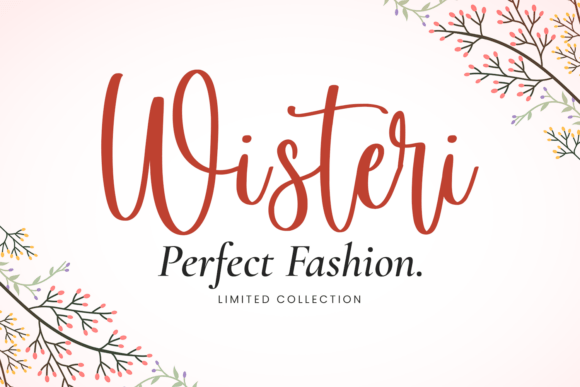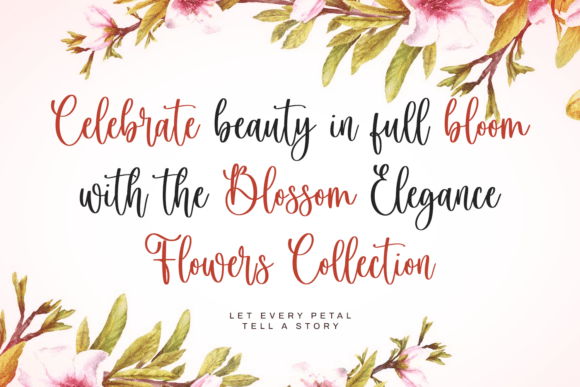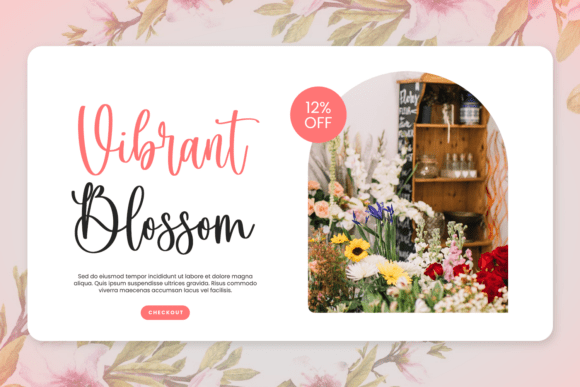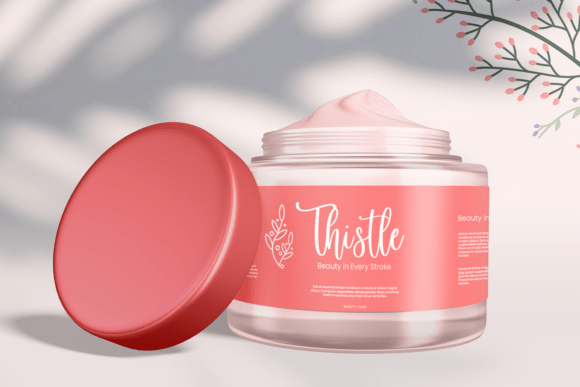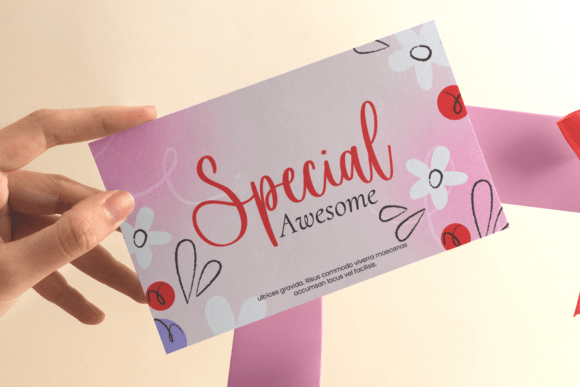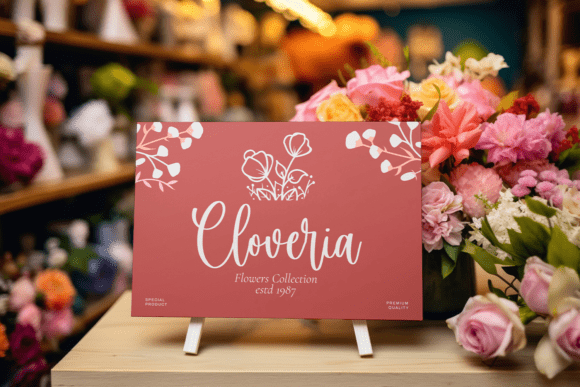
Introducing Antonella: The Elegant Script Handwritten Font for Your Special Designs
Are you looking for a font that can add a touch of elegance and charm to your designs? Look no further than Antonella, a stunning script handwritten font that is perfect for a variety of creative projects. With its graceful curves and flowing strokes, Antonella captures the heartfelt emotion and charm that is ideal for wedding invitations, birthday cards, Easter crafts, Thanksgiving menus, and Christmas decorations.
The Perfect Companion for Your Designs
Antonella is the ideal companion for projects that require a soft and beautifully hand-crafted touch. Whether you’re designing something intimate, like a wedding invitation or birthday card, or something more festive, like a holiday craft or decoration, Antonella adapts effortlessly to the mood of the season. From spring and summer to autumn and winter, this versatile font is sure to bring your creative vision to life.
Unique Features of Antonella
Each character in Antonella comes to life with beginning and ending swash tails, adding a stylish flair that feels both romantic and whimsical. These elegant tails allow for dynamic and fluid lettering that’s perfect for a variety of applications, including:
- Cricut projects: Add a personal touch to your Cricut designs with Antonella’s elegant script.
- Embroidery designs: Bring your embroidery projects to life with the flowing strokes and swash tails of Antonella.
- Personalized gifts: Add a special touch to your gifts with Antonella’s beautiful and unique lettering.
Celebrate Life’s Cherished Moments with Elegance and Warmth
Whether you’re designing a wedding invitation, birthday card, or holiday craft, Antonella is the perfect font to bring your creative vision to life. Its soft and elegant script is sure to add a touch of warmth and charm to your designs, making them truly special and memorable.
Tips for Using Antonella in Your Designs
Here are a few tips for using Antonella in your designs:
- Pair Antonella with a simple background or texture to let the font be the focal point.
- Experiment with different colors and swashes to add a pop of color to your design.
- Use Antonella’s swash tails to add a touch of elegance and sophistication to your design.
- Don’t be afraid to get creative and try new things – Antonella is a versatile font that can be used in a variety of ways.
Why Choose Antonella?
There are many reasons why Antonella is the perfect font for your designs:
- Unique and elegant script: Antonella’s flowing strokes and swash tails make it a truly unique and elegant font.
- Versatile: Antonella can be used in a variety of designs, from intimate and personal to festive and celebratory.
- Easy to use: Antonella is a straightforward font to use, even for those who are new to design.
- High-quality: Antonella is a high-quality font that is sure to add a touch of elegance and sophistication to your designs.
In conclusion, Antonella is a stunning script handwritten font that is perfect for a variety of creative projects. With its elegant curves and flowing strokes, Antonella captures the heartfelt emotion and charm that is ideal for wedding invitations, birthday cards, Easter crafts, Thanksgiving menus, and Christmas decorations. Its unique features, versatility, and high-quality design make it the perfect companion for your designs. So why wait? Try Antonella today and bring your creative vision to life!